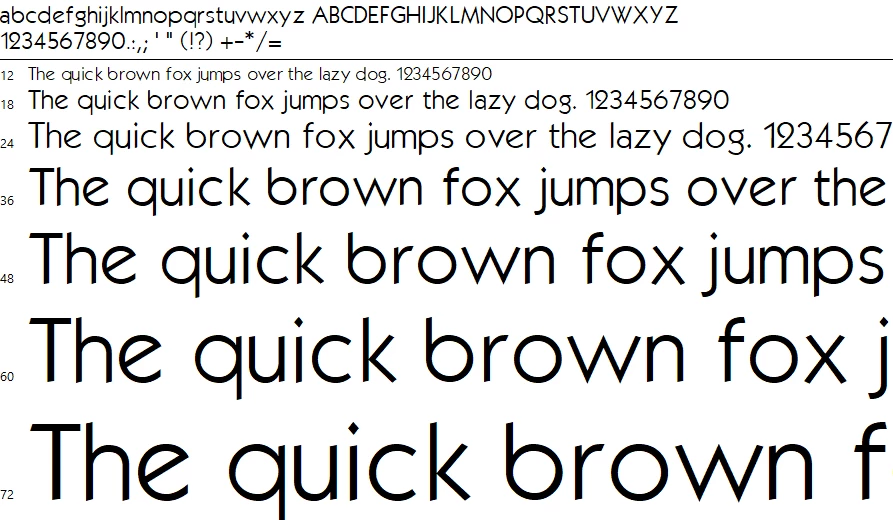
About The Font
Kabel is a geometric sans-serif typeface designed by German designer Rudolf Koch and released by the Klingspor foundry from 1927 onwards. With its four weights and stylistic alternates, Kabel is very eye-catchy and elegant. Primarily based loosely on the structure from the circle and straight lines, it, even so, applies many uncommon design and style selections, such as a delicately small x-height (though larger during the bold body weight), a tilted ‘e’ and irregularly angled terminals, so as to add delicacy and an irregularity suggesting classy calligraphy style.
This was a very popular font during 1920 and 1930s. It was used by many companies and magazines. It was even used in the logo of the famous board game Monoply. As the font has four weights and an eye-catchy typeface, it is good for almost every section you need.
- Designing Work: As the font has four weights, it is good for almost every section you need. For the geometric shape, it may not cover artistic design areas but has a look of great designs.
- Headline: For the Headlines and Text, Kabel font is very good to use. You can utilize its couple of formats according to requirements.
- Official work or Documentation:Â The font has the look to use in official work and documentation.
- Logos: You can design your logos with it.
- Websites: I have seen various websites use this font.
Kabel Font View
| Name | Kabel Font |
| Style | Geometric Sans-serif. |
| Designer | Rudolf Koch. |
Similar Name Font
- ITC Kabel.
- Neue Kabel.
Similar to Kabel Font
- Josefin Sans.
- Virginia.
- Ealing.
- Relish.
- Lionel Text Steam.
- Raleway.
What is the Kabel font?
Ans: The Kabel font is a geometric sans-serif typeface designed by German designer Rudolf Koch and released by the Klingspor foundry in 1927.
What are some common uses for the Kabel font?
Ans: The Kabel font is commonly used in headlines and body text, official documents, logos, websites, and advertising materials.
Is there any font similar to Kabel Font in Google Fonts?
Ans: Raleway is the most similar Google font to Kabel.